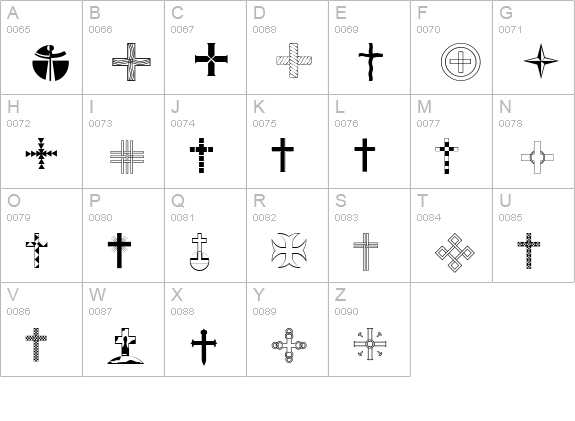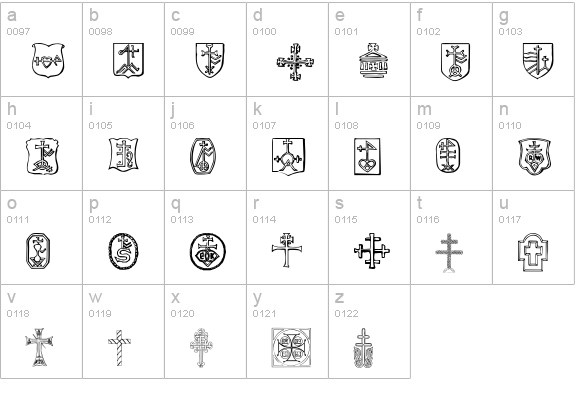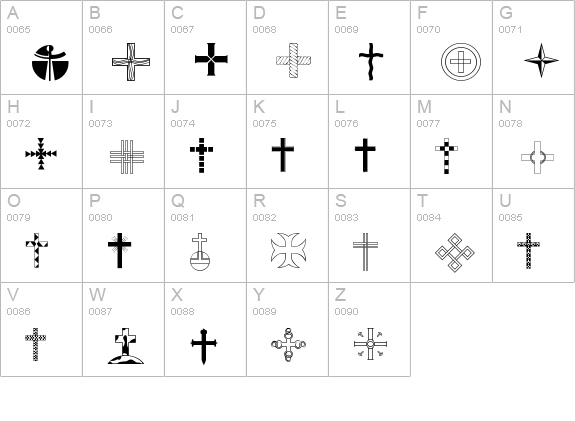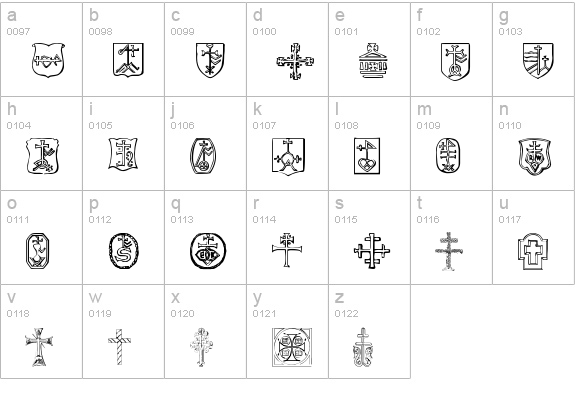
The Christian Crosses IV font is a beautifully crafted typeface that embodies the solemnity and reverence associated with the Christian faith. The intricate design of the crosses within the font exudes a sense of timeless tradition and spiritual significance. Each character is meticulously detailed, capturing the essence of faith and devotion. This elegant font is perfect for creating religious-themed designs, church materials, or any project that requires a touch of spiritual inspiration. The Christian Crosses IV font is versatile and can be used for both digital and print applications, adding a touch of elegance and meaning to any project. Best of all, this font is available for free download at FontsMarket.com, making it accessible to all who seek to incorporate the beauty and symbolism of Christian crosses into their designs. Embrace the power of faith and tradition with the Christian Crosses IV font today.